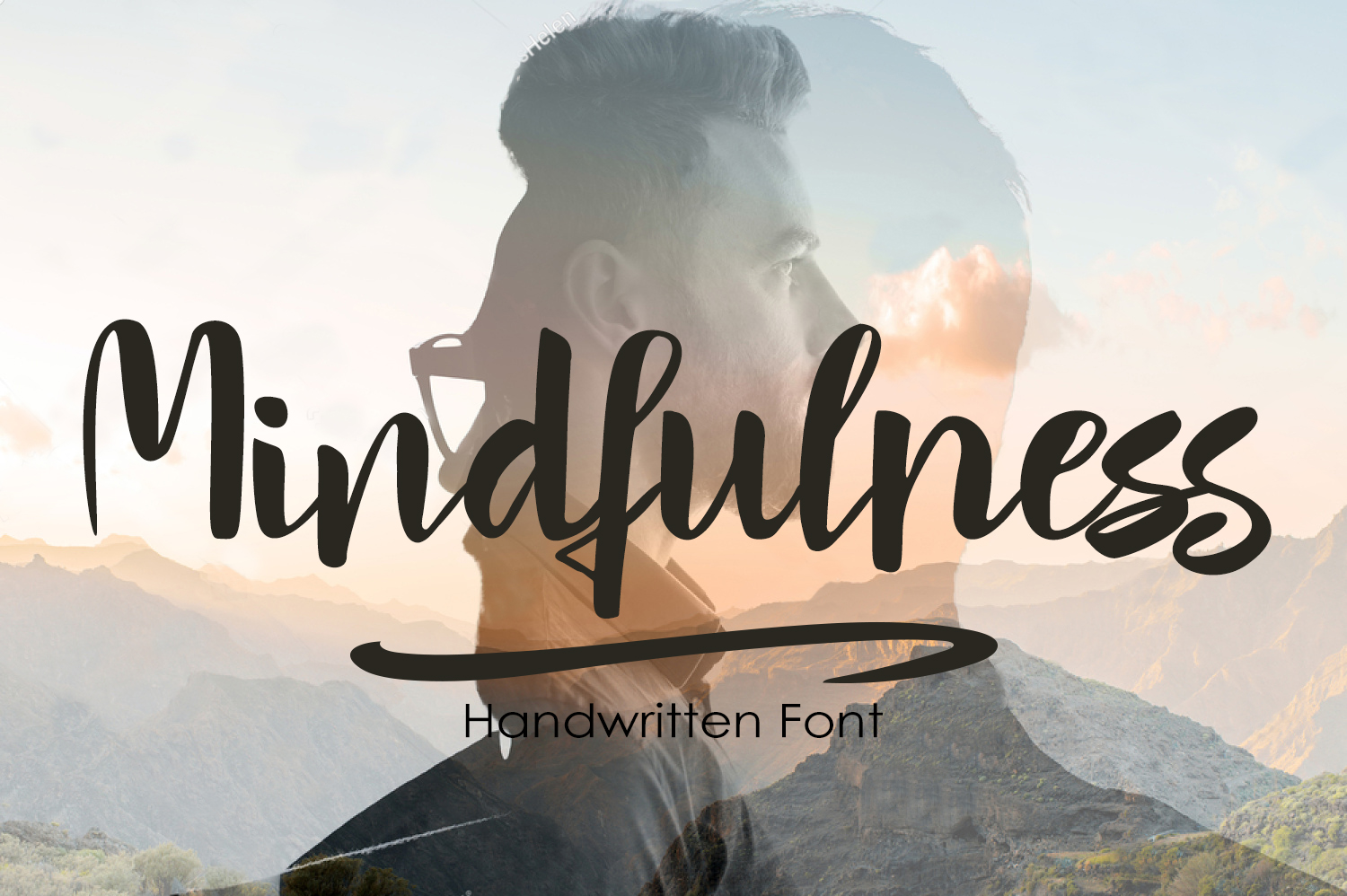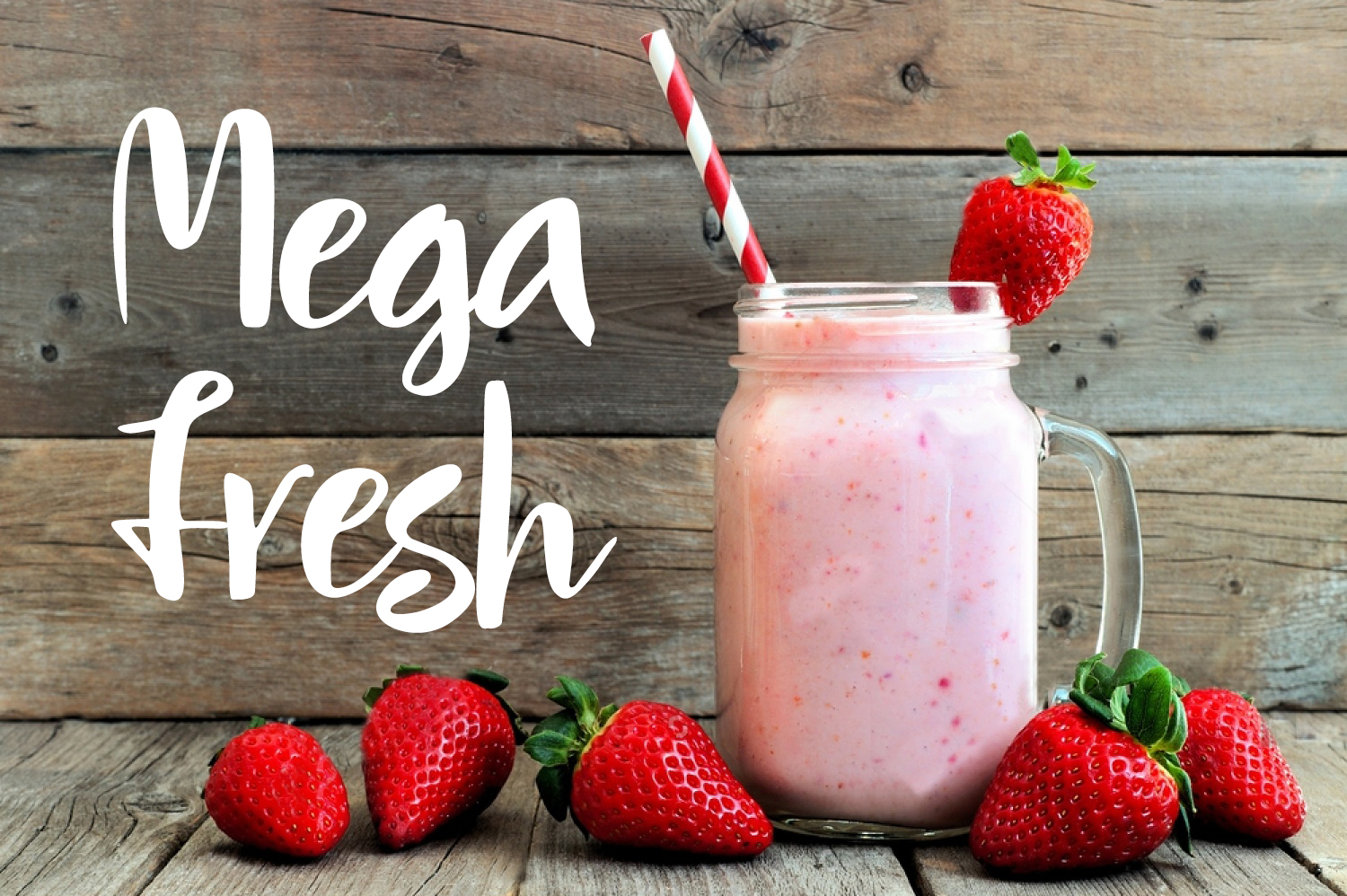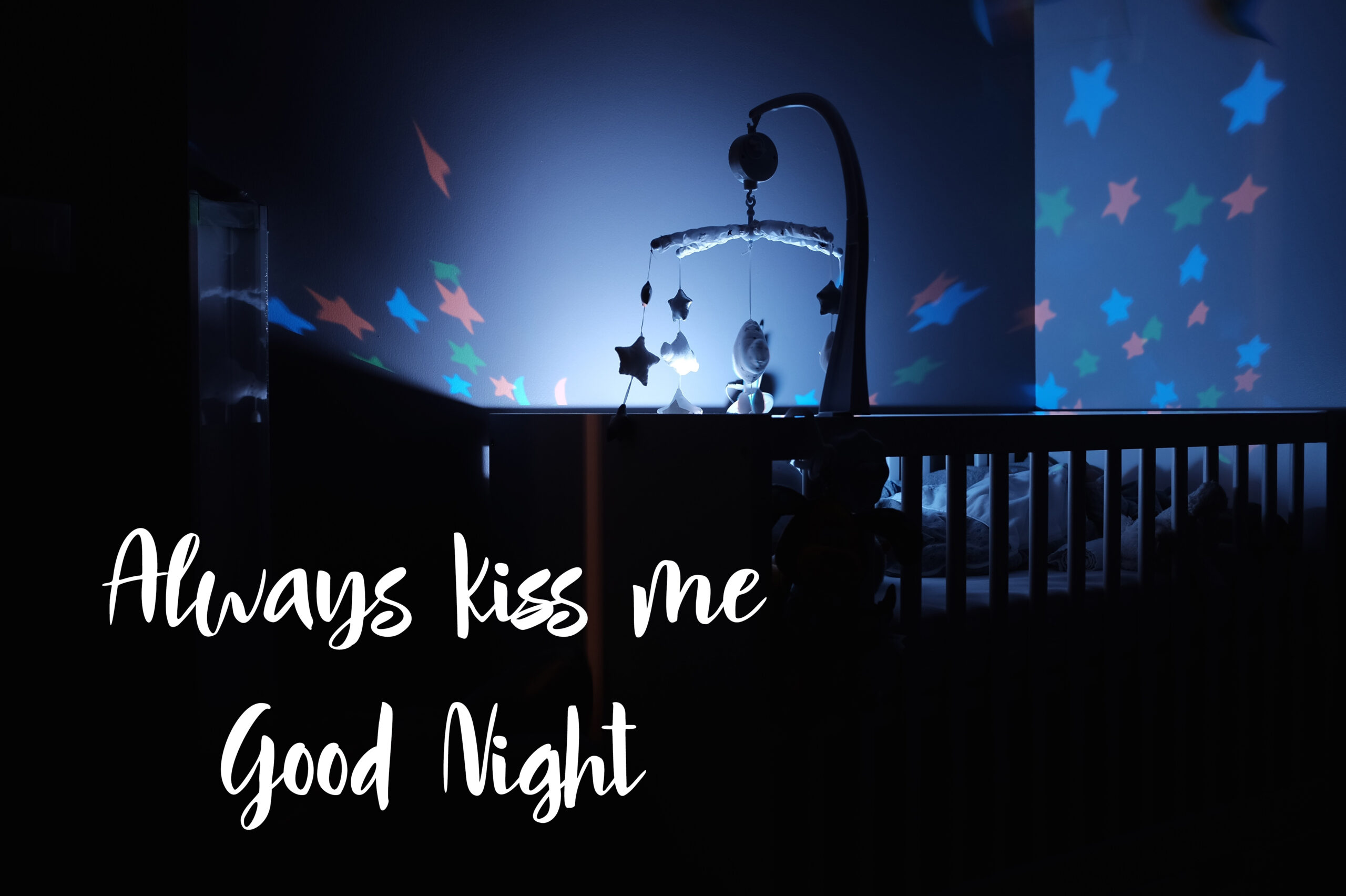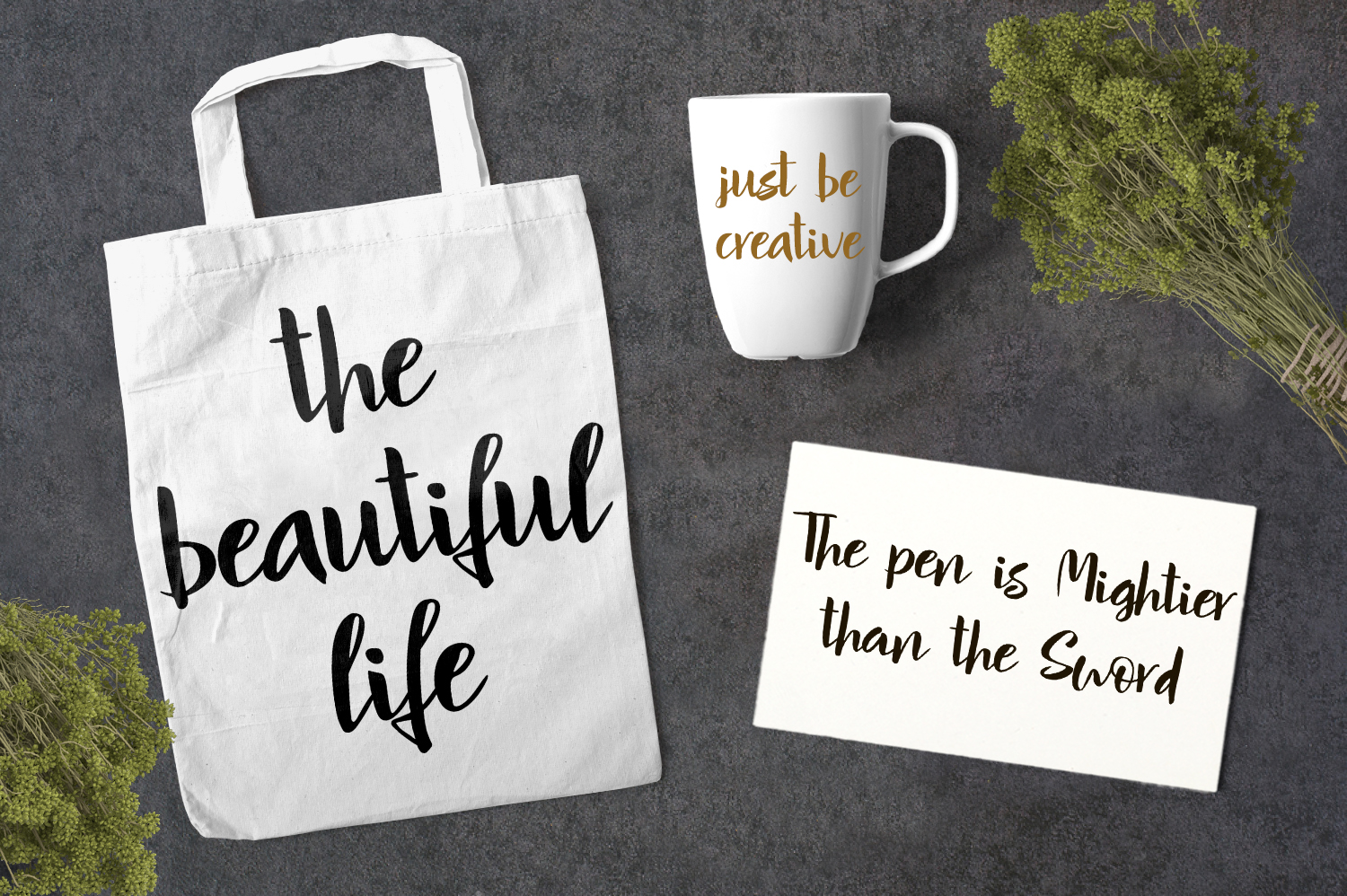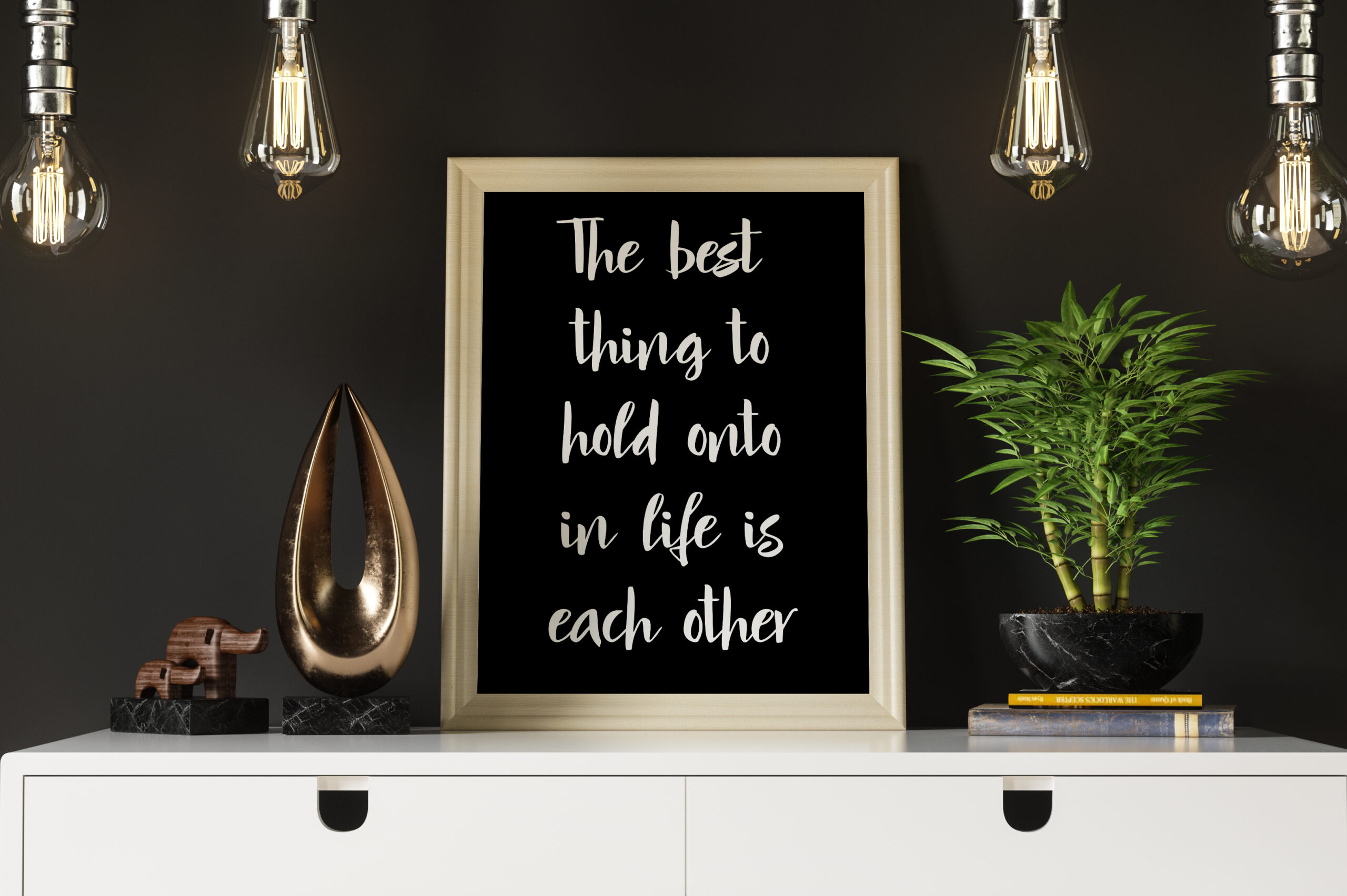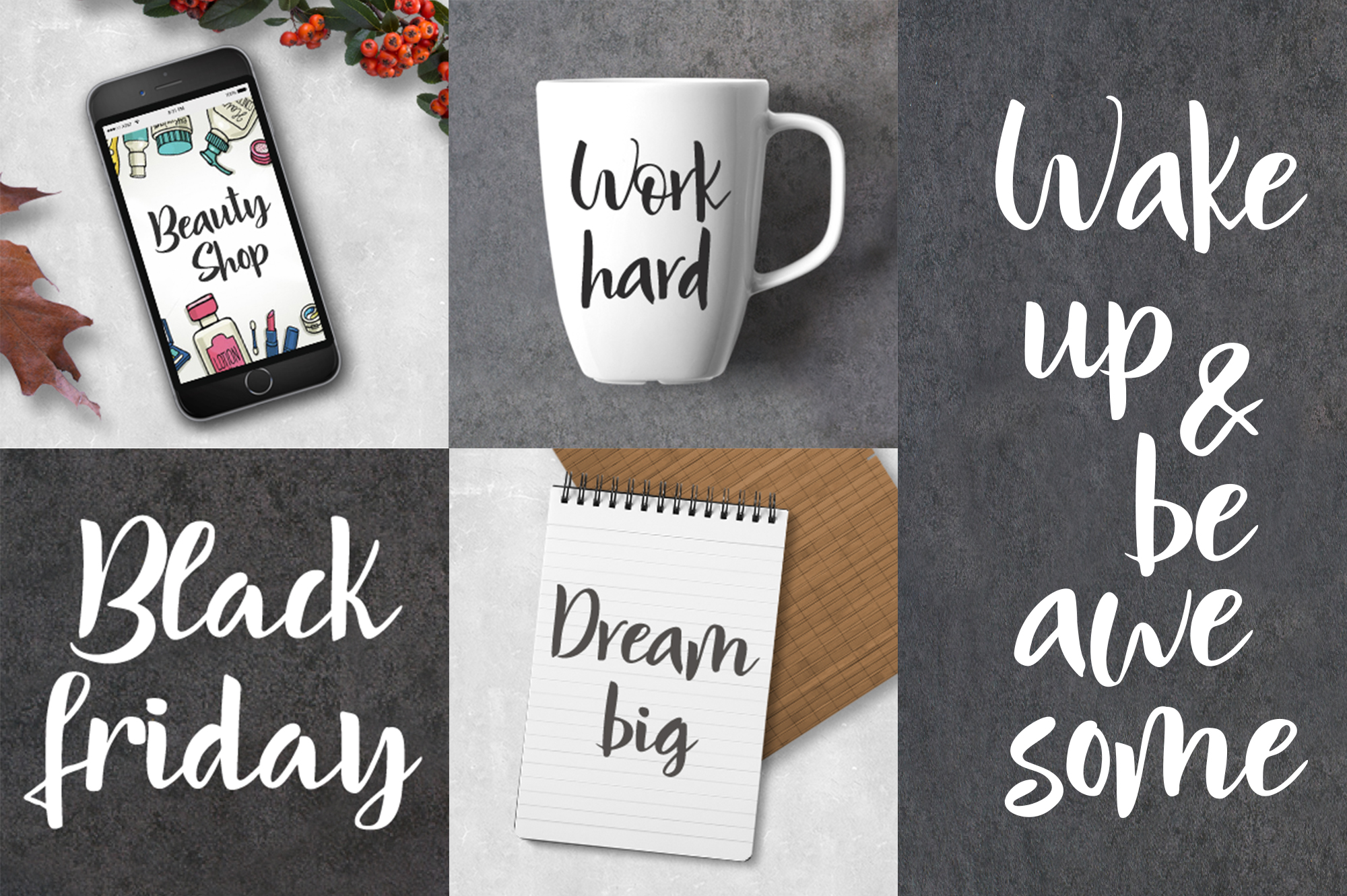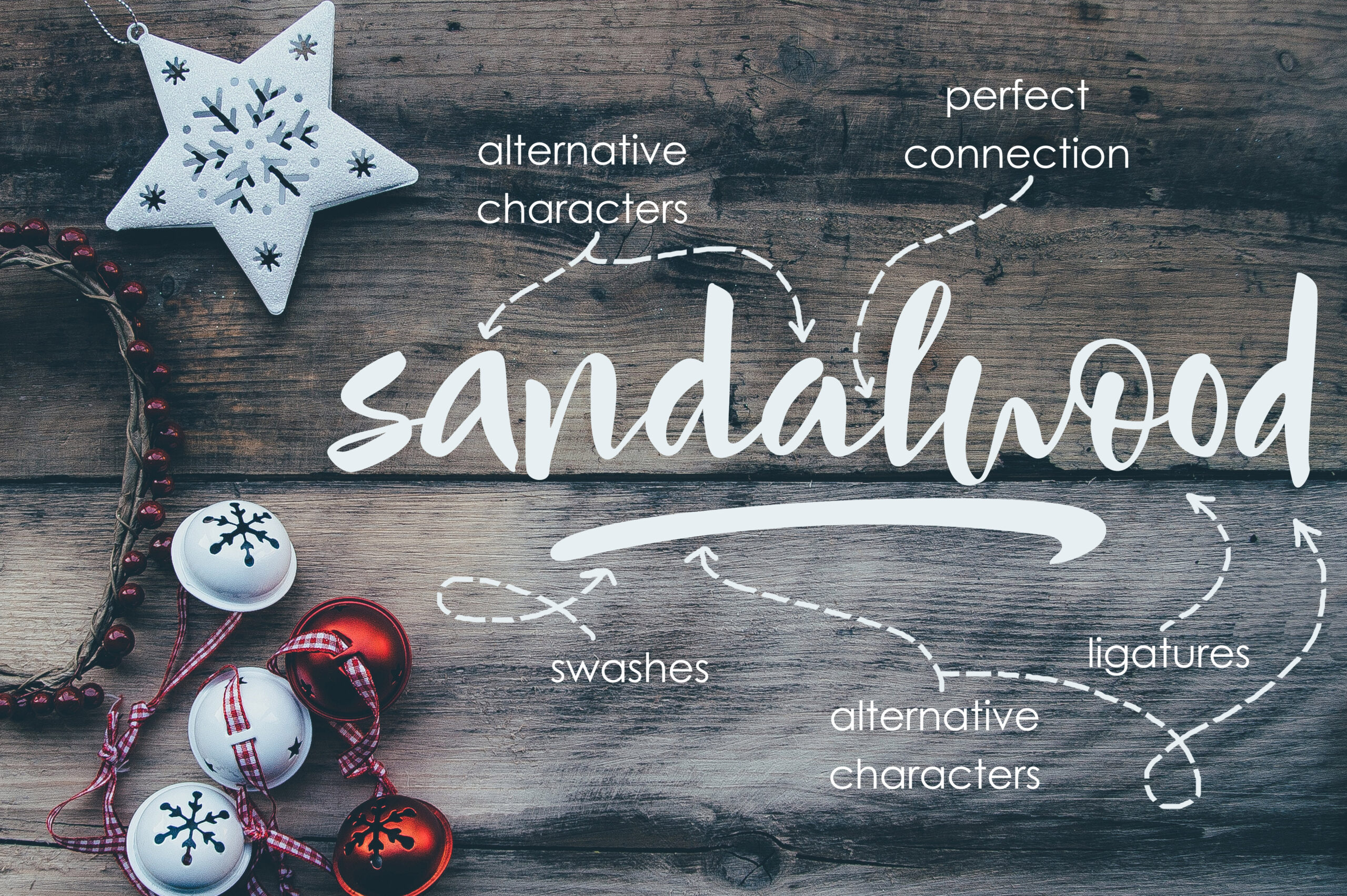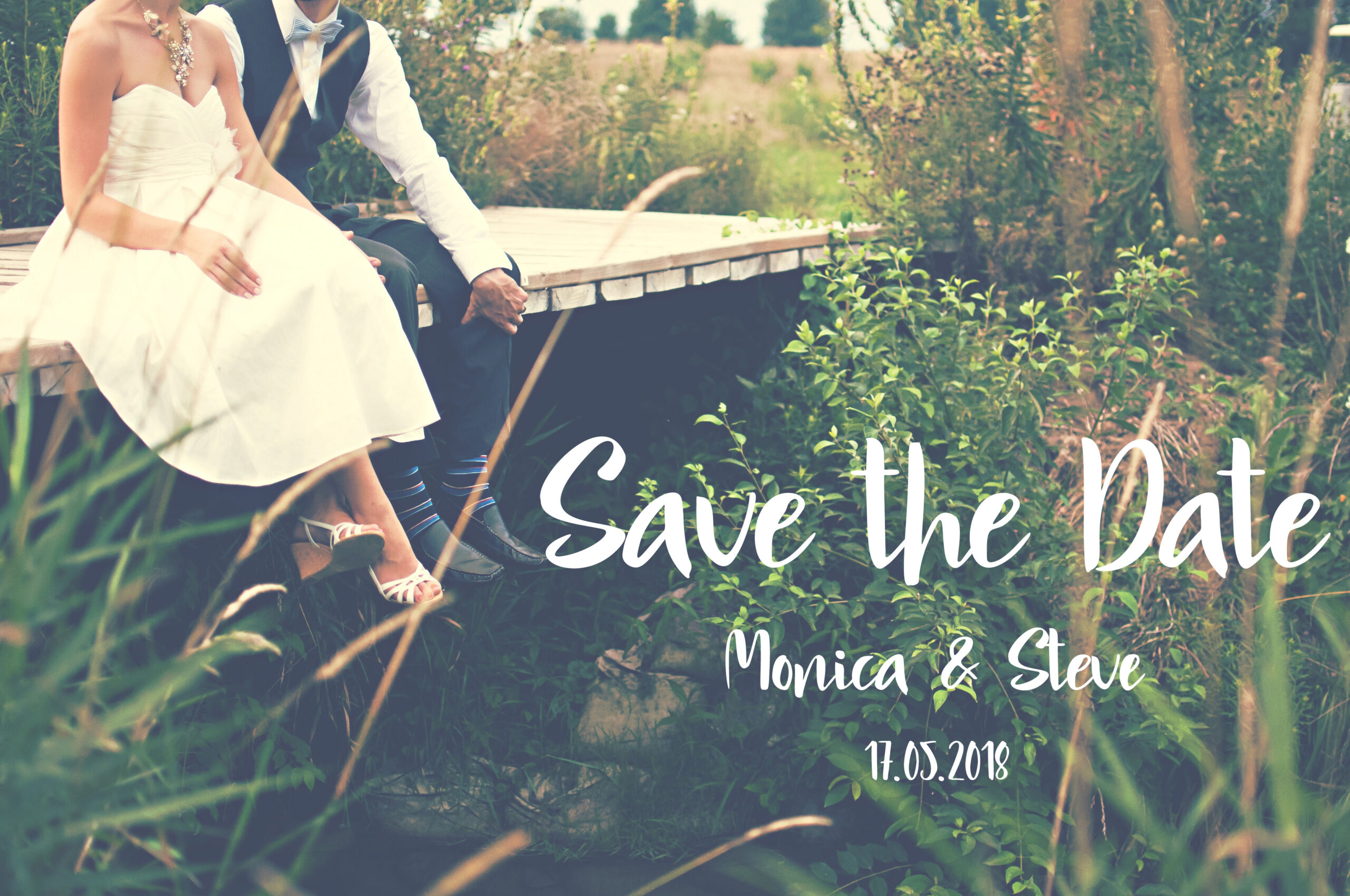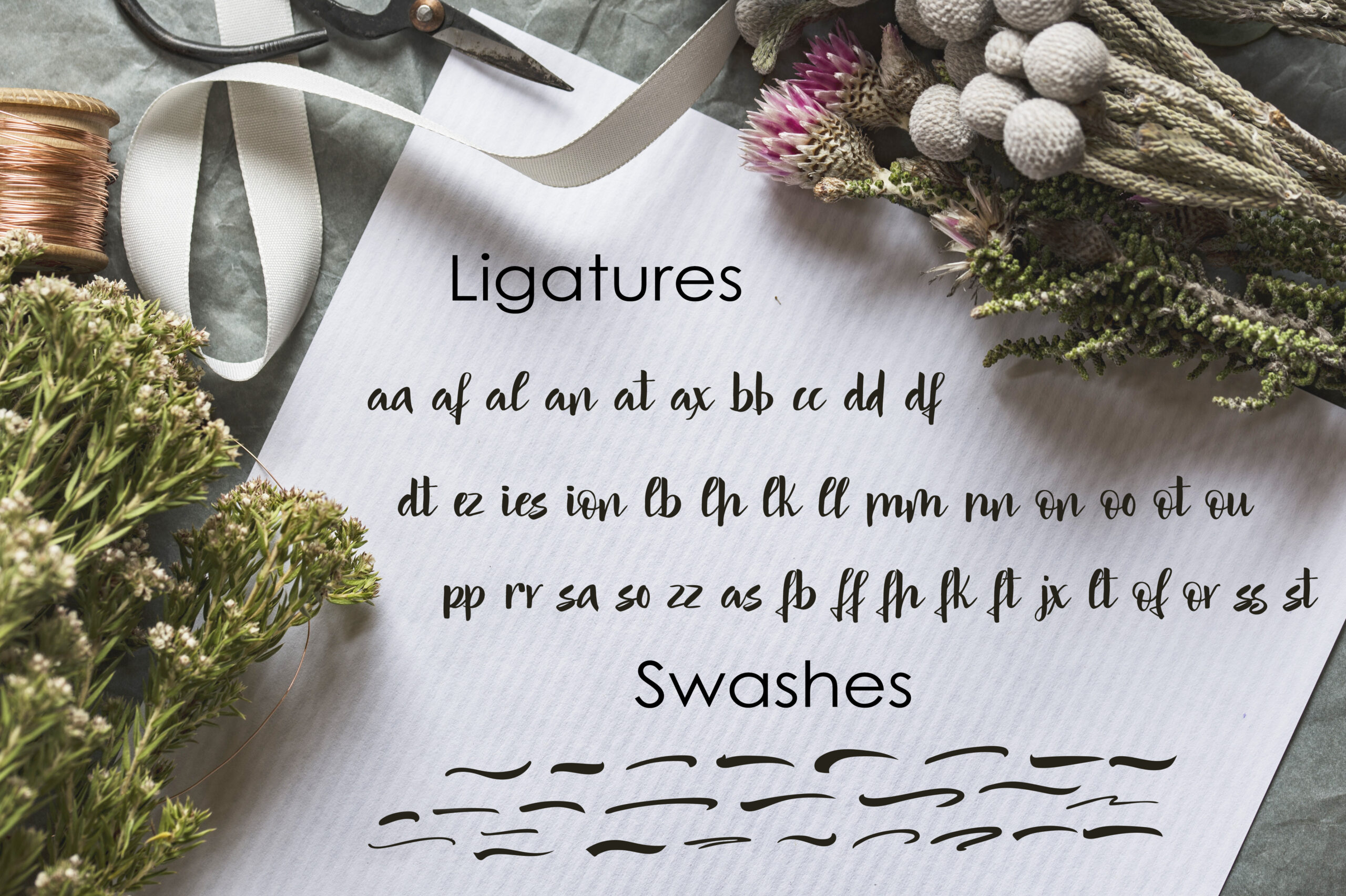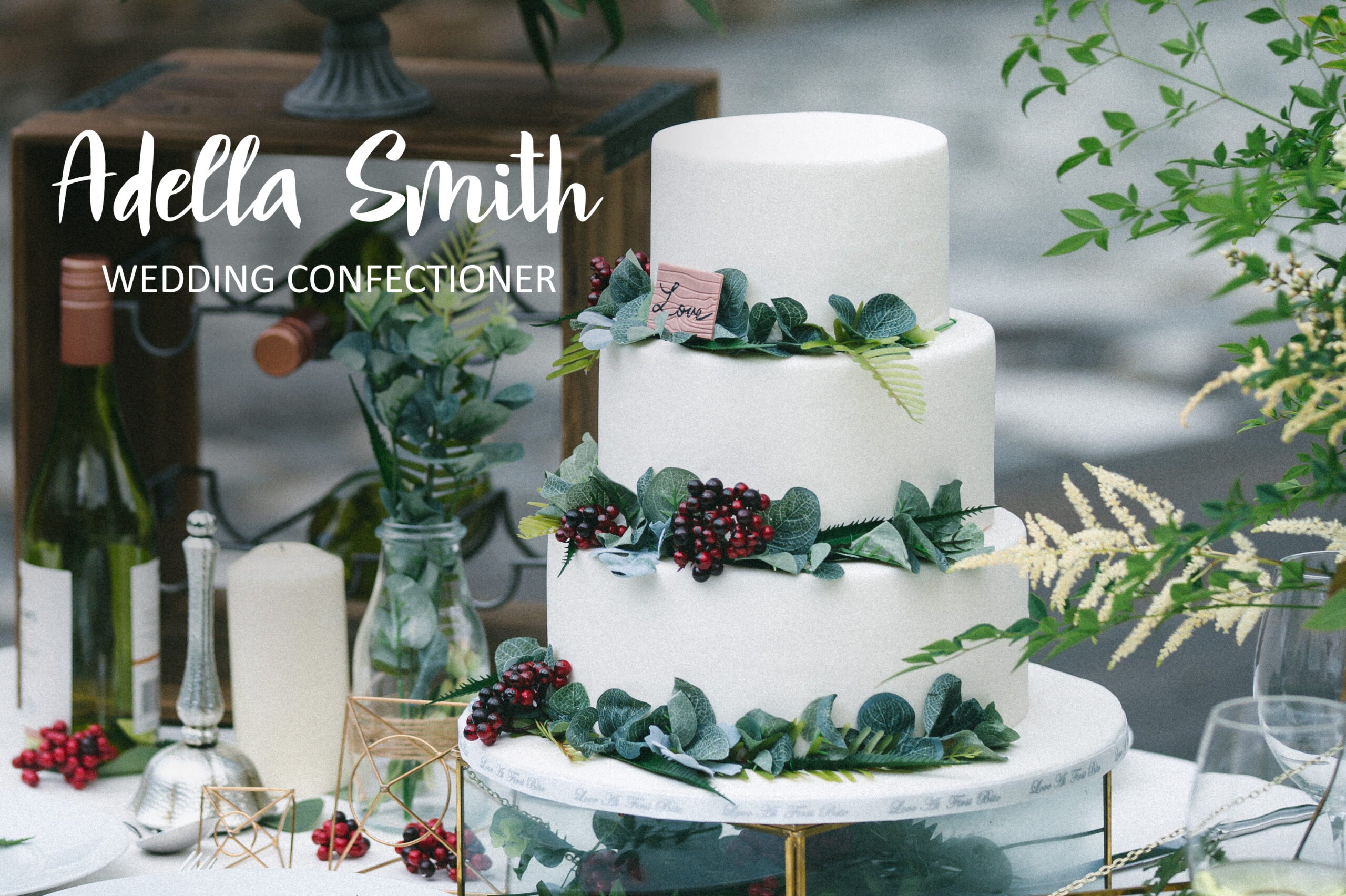
Mindfulness Font
About Mindfulness Font
Mindfulness lives up to its namesake: each letter has been attentively written with gentle curves to produce a font that is completely distinctive and original. Mindfulness makes custom lettering a dream thanks to all the little extra decorative options you can include for pretty and unique customization.